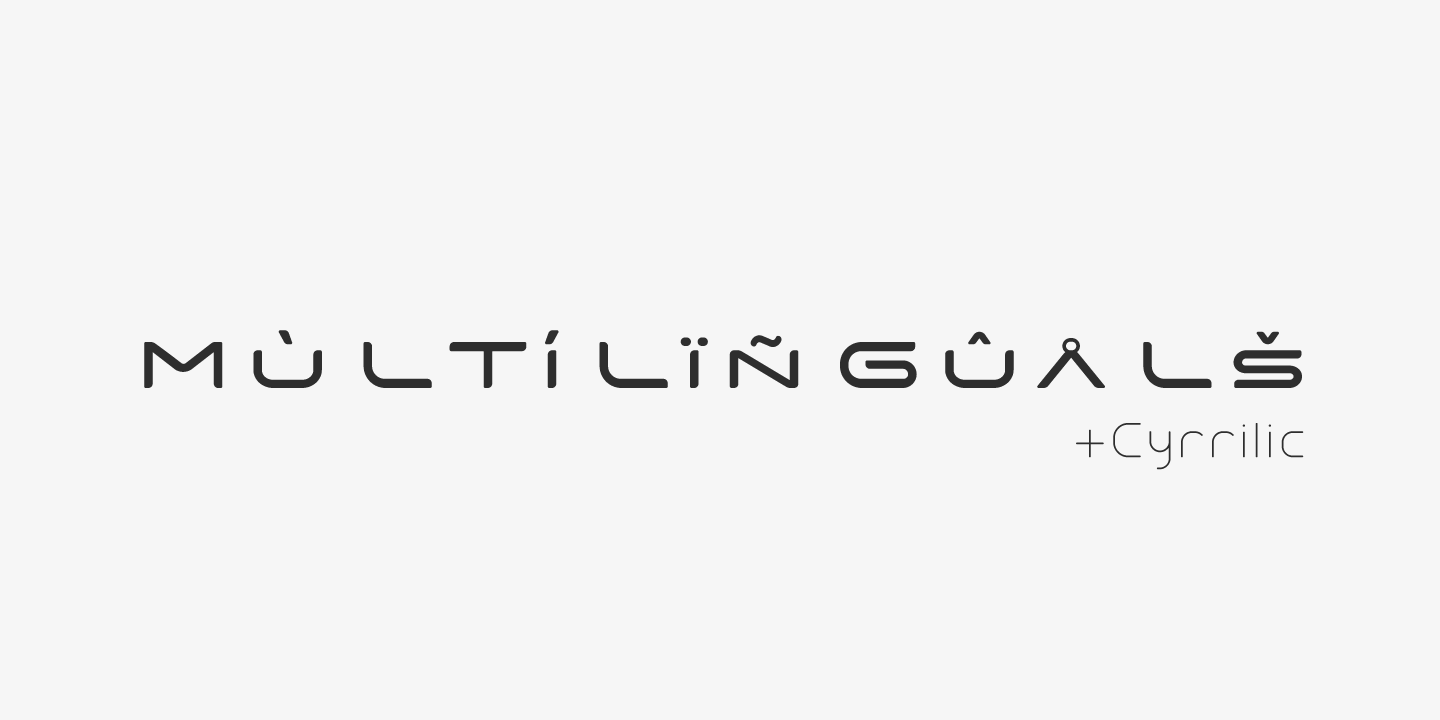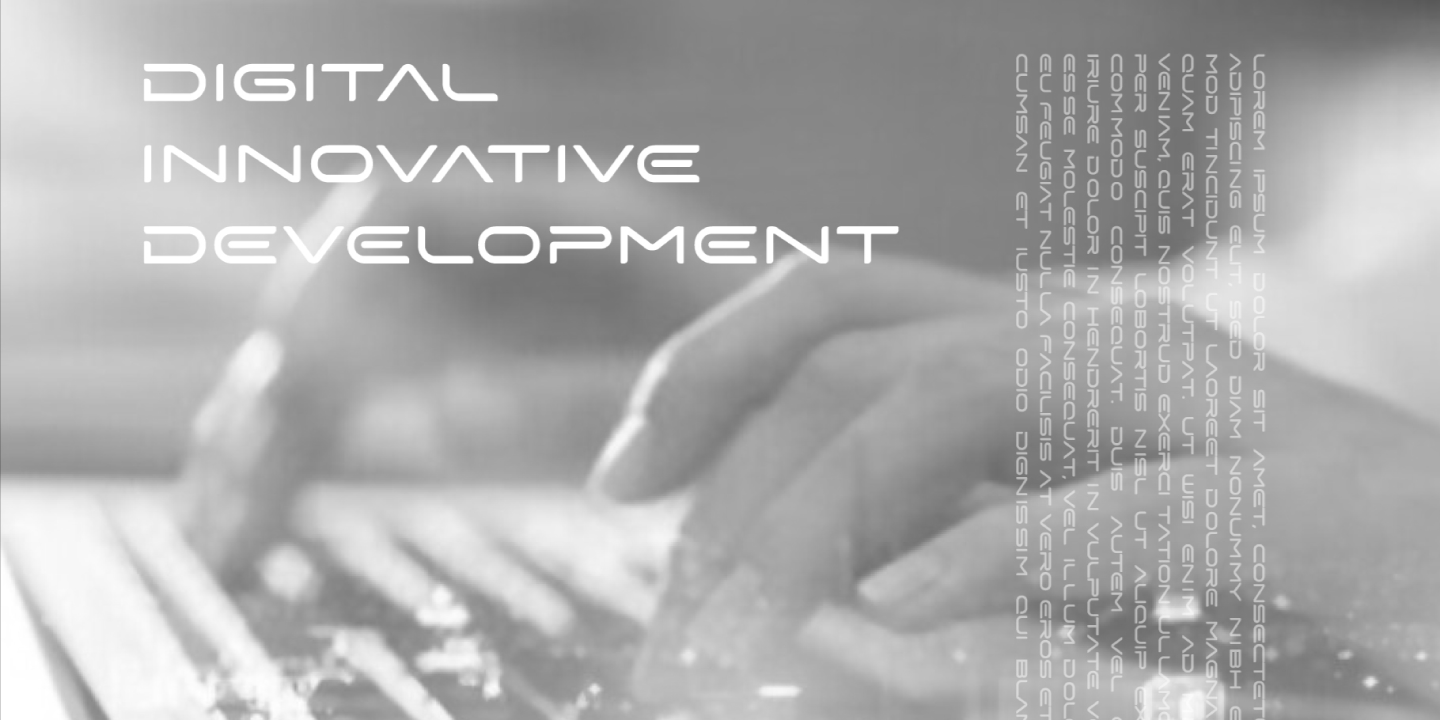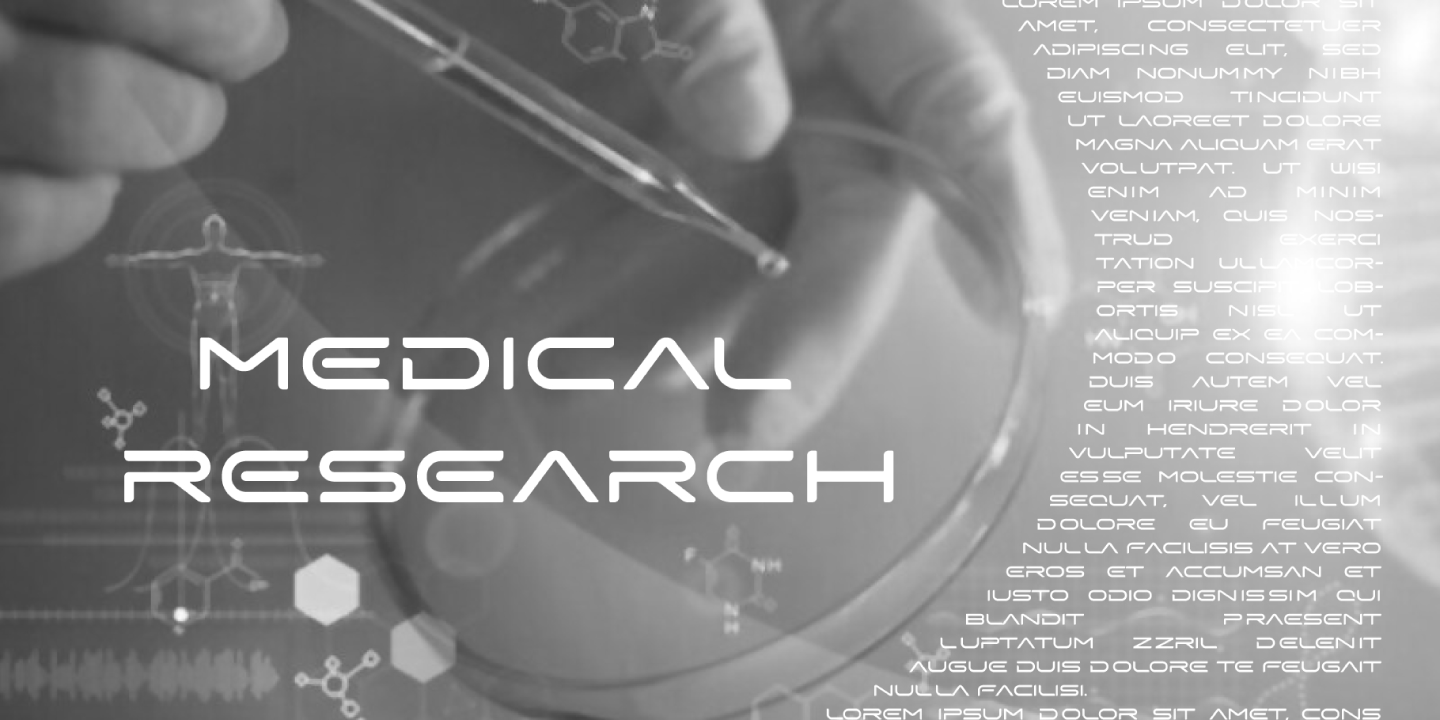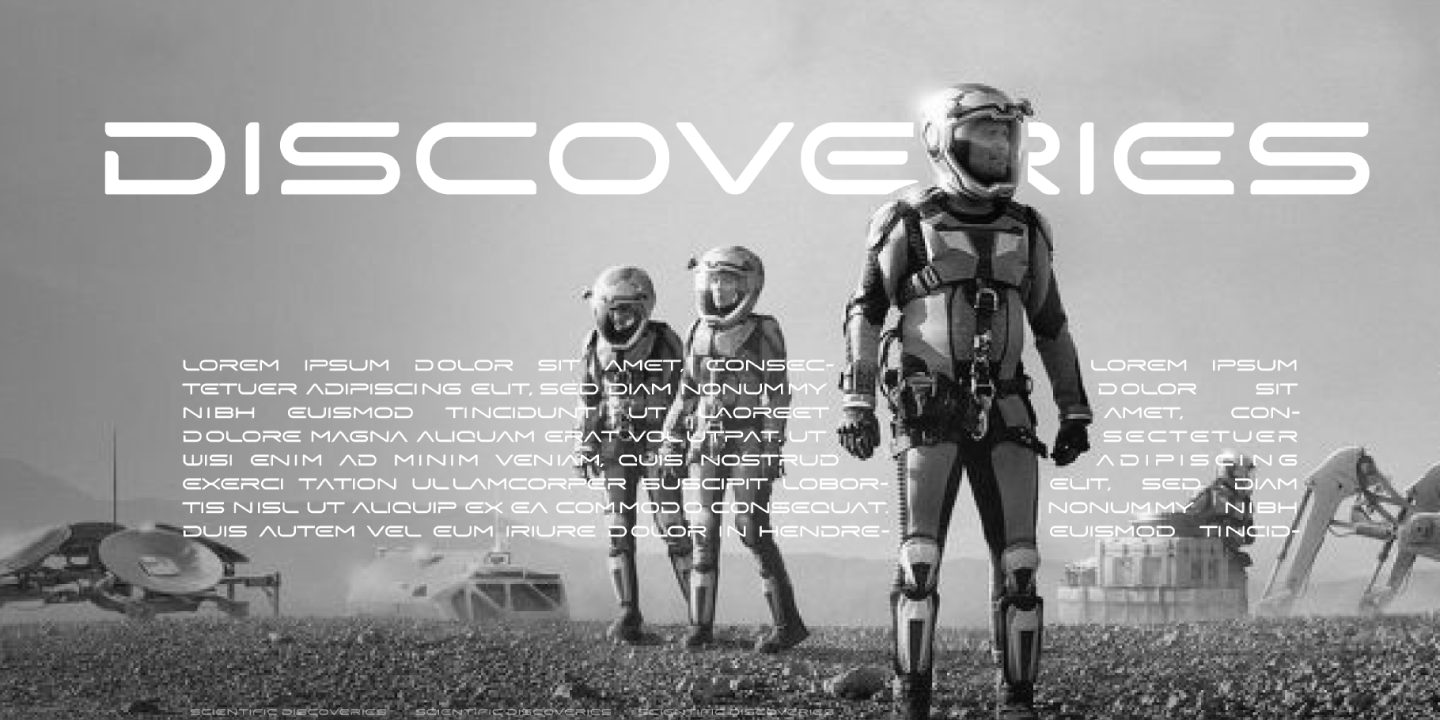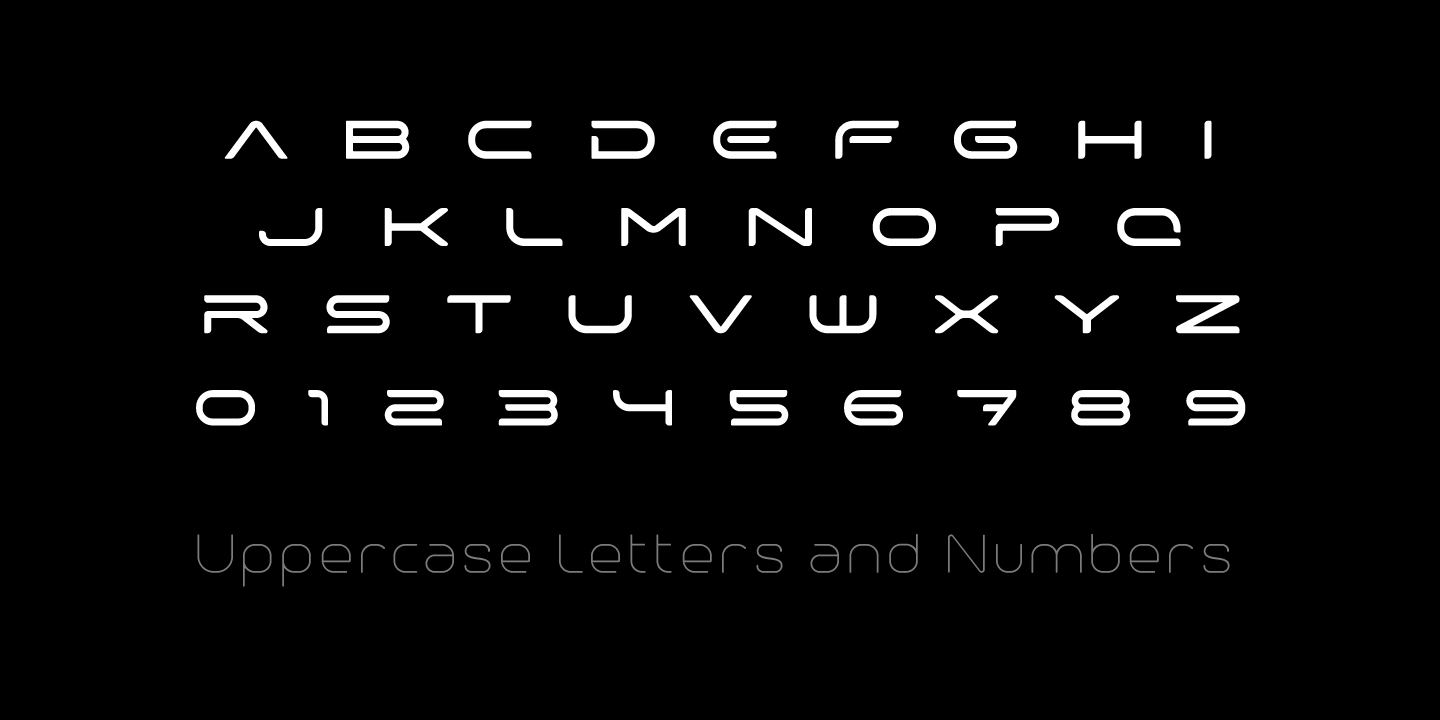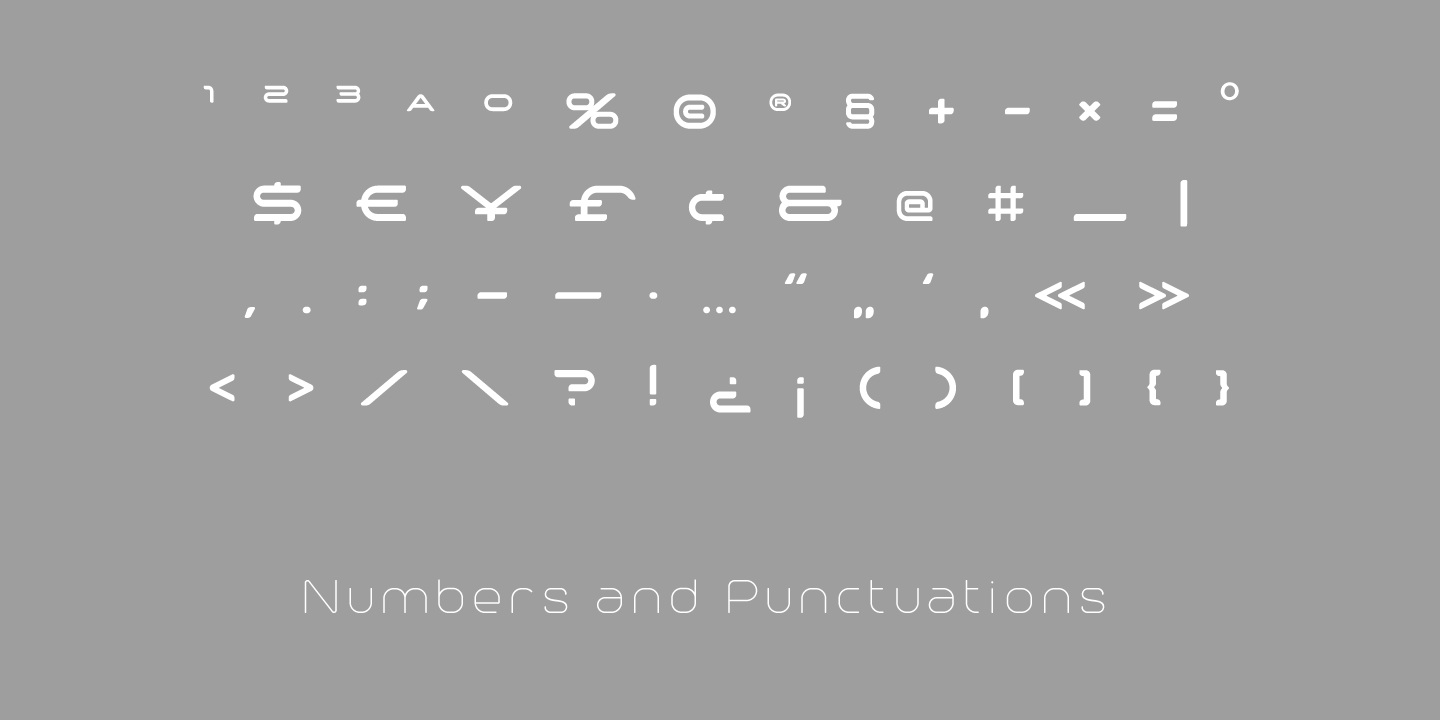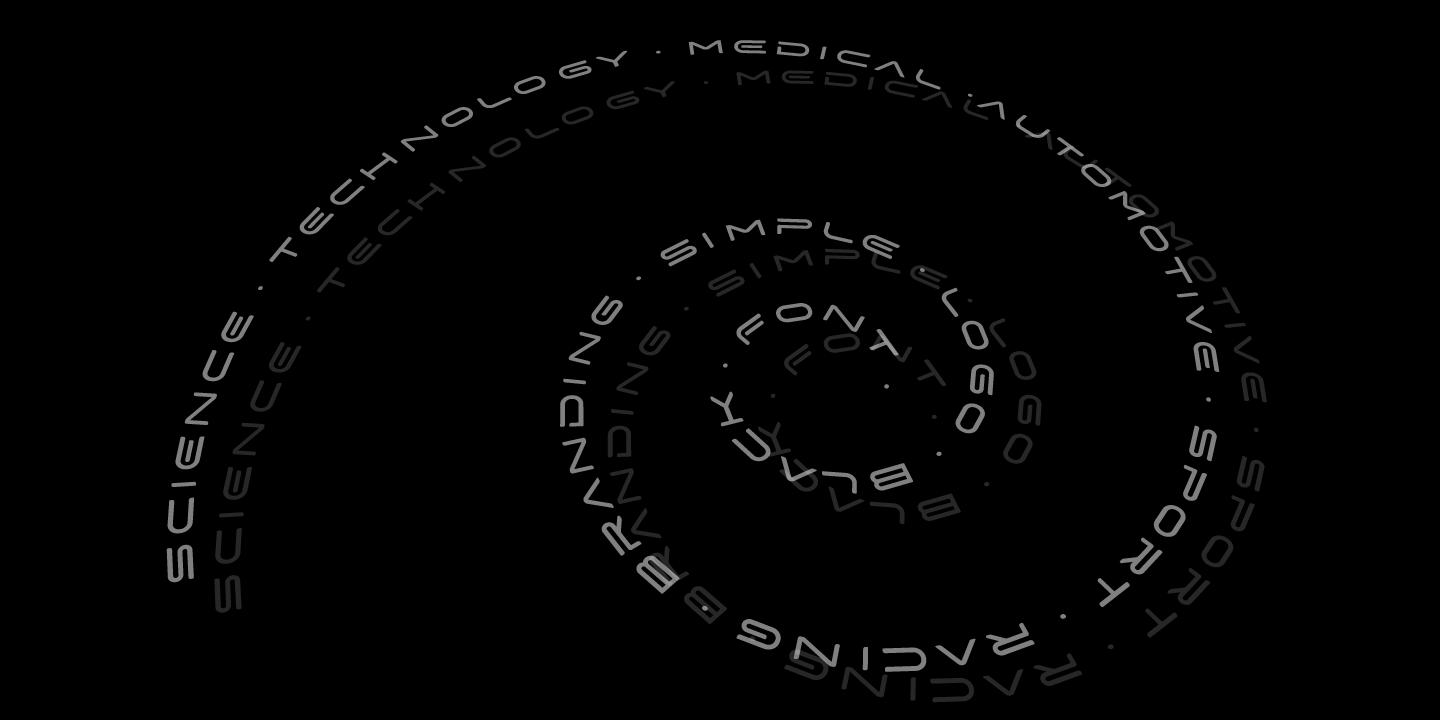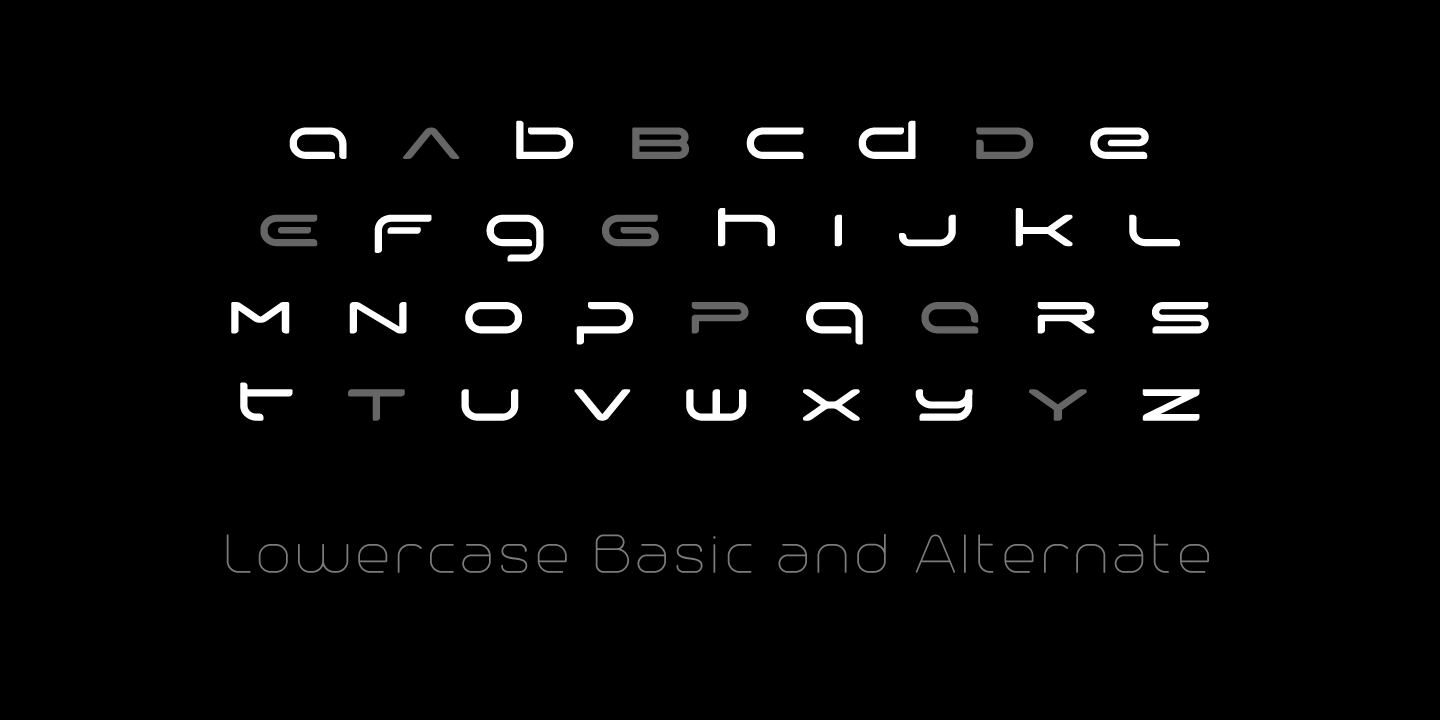
Xspace Regular
Xspace is an expanded futuristic display typeface designed for technology, aerospace, science fiction and forward-looking brands. Its wide geometric proportions, rounded modular letterforms and distinctive open shapes create a clean high-tech appearance with a strong visual identity.
Xspace works especially well for logos, headlines, posters, game titles, digital interfaces, automotive graphics, product packaging, medical technology and scientific communication. Its extended construction gives titles and wordmarks a spacious, modern and innovative character.
The font includes uppercase and lowercase letters, alternate lowercase forms, numerals, punctuation, multilingual Latin support and Cyrillic characters. The alternate letterforms provide additional flexibility for creating distinctive logos, custom wordmarks and display compositions.